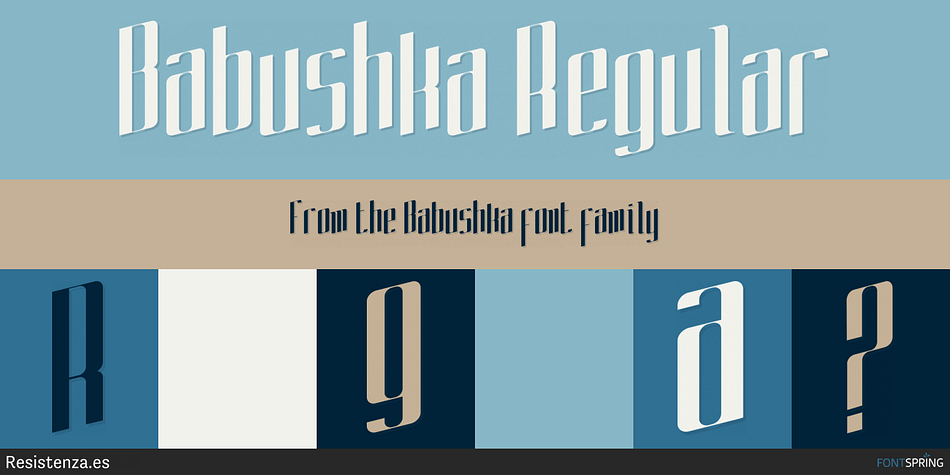
Babushka is a display sans font published by Resistenza.es.
Babushka Regular
This font, is dedicated to all the Russian and non-Russian Babushkas around the world. This font was created using a flat brush and Chinese ink. After that I scanned all the letters and numbers and created the real font.